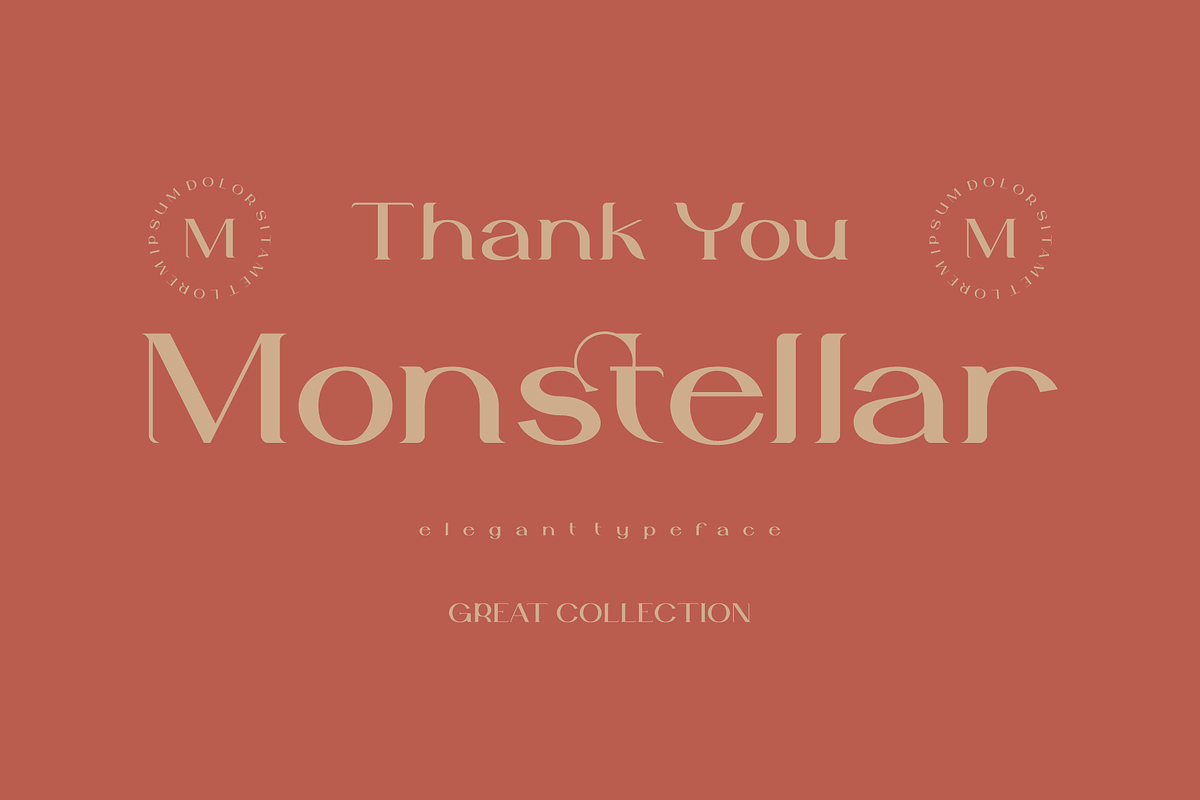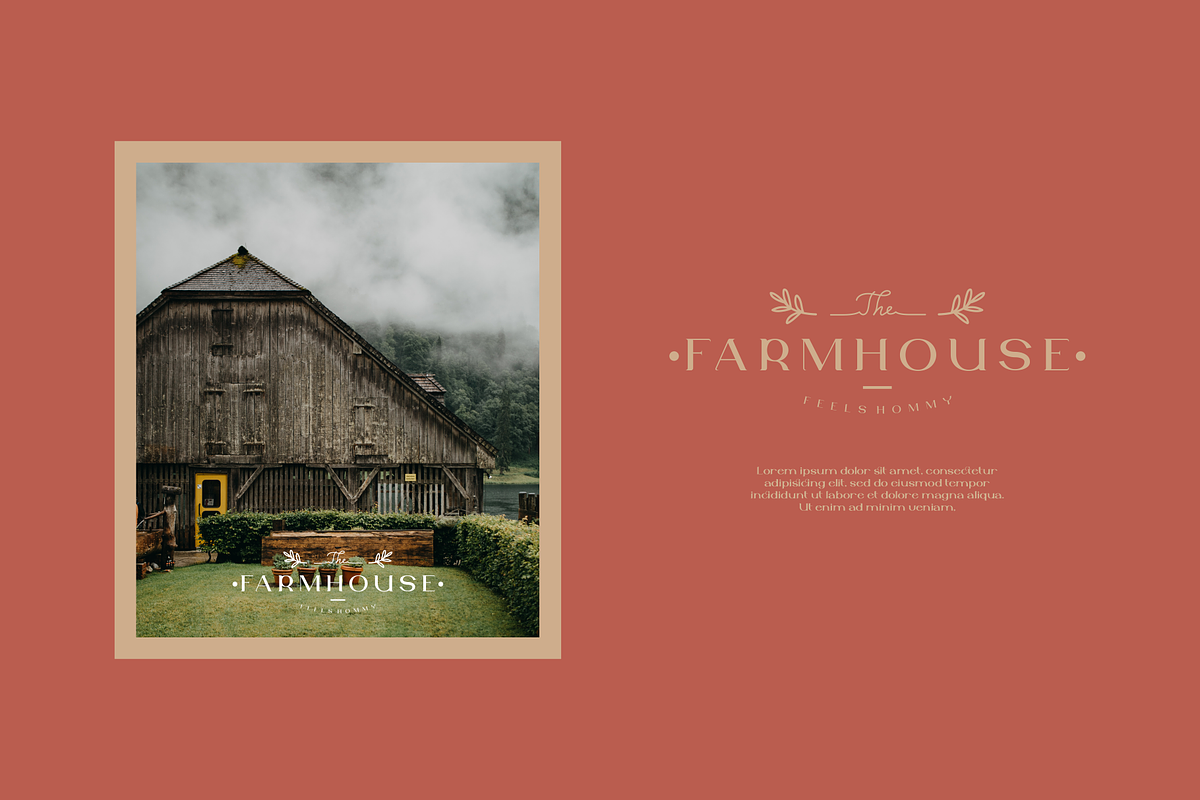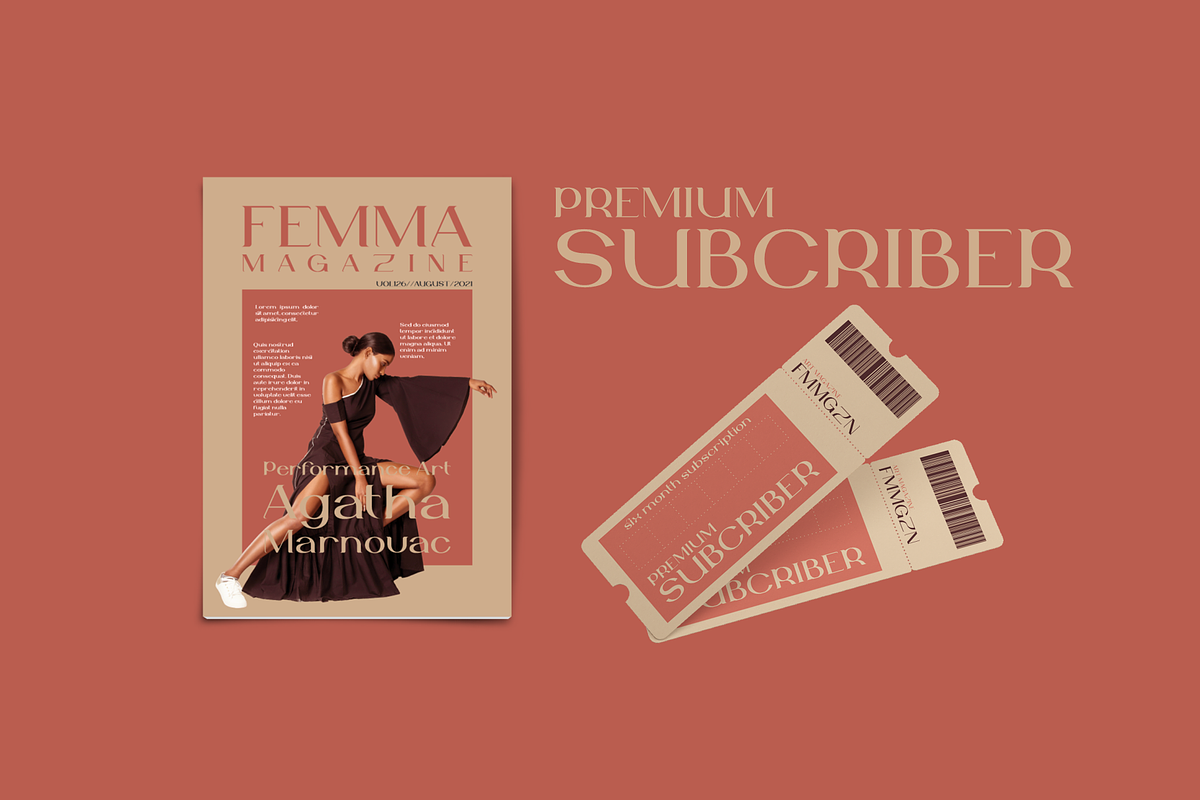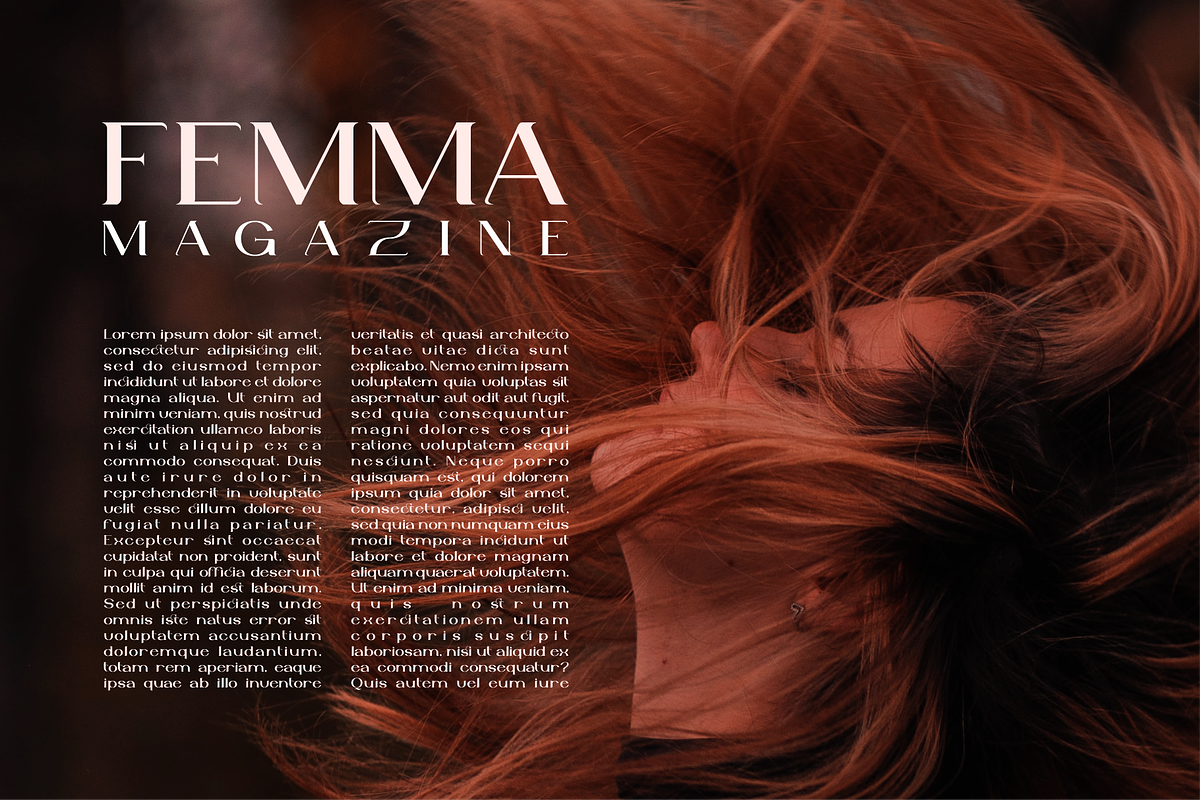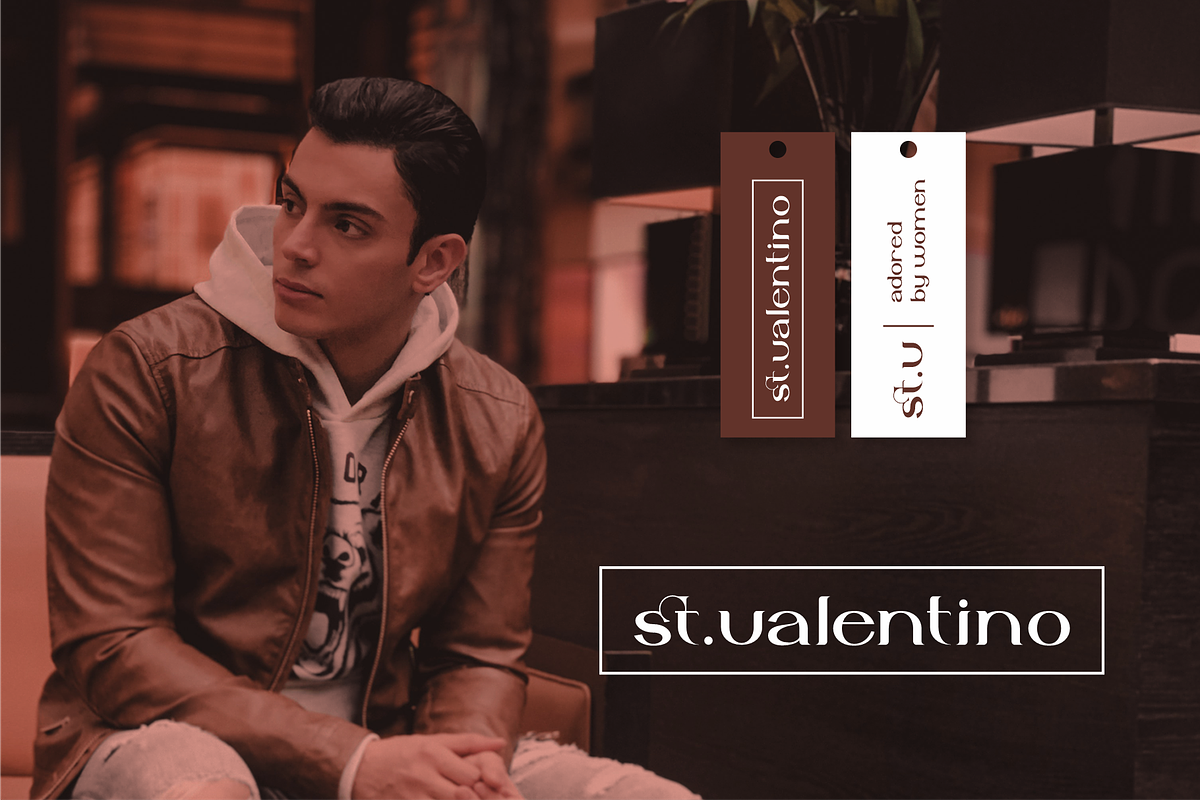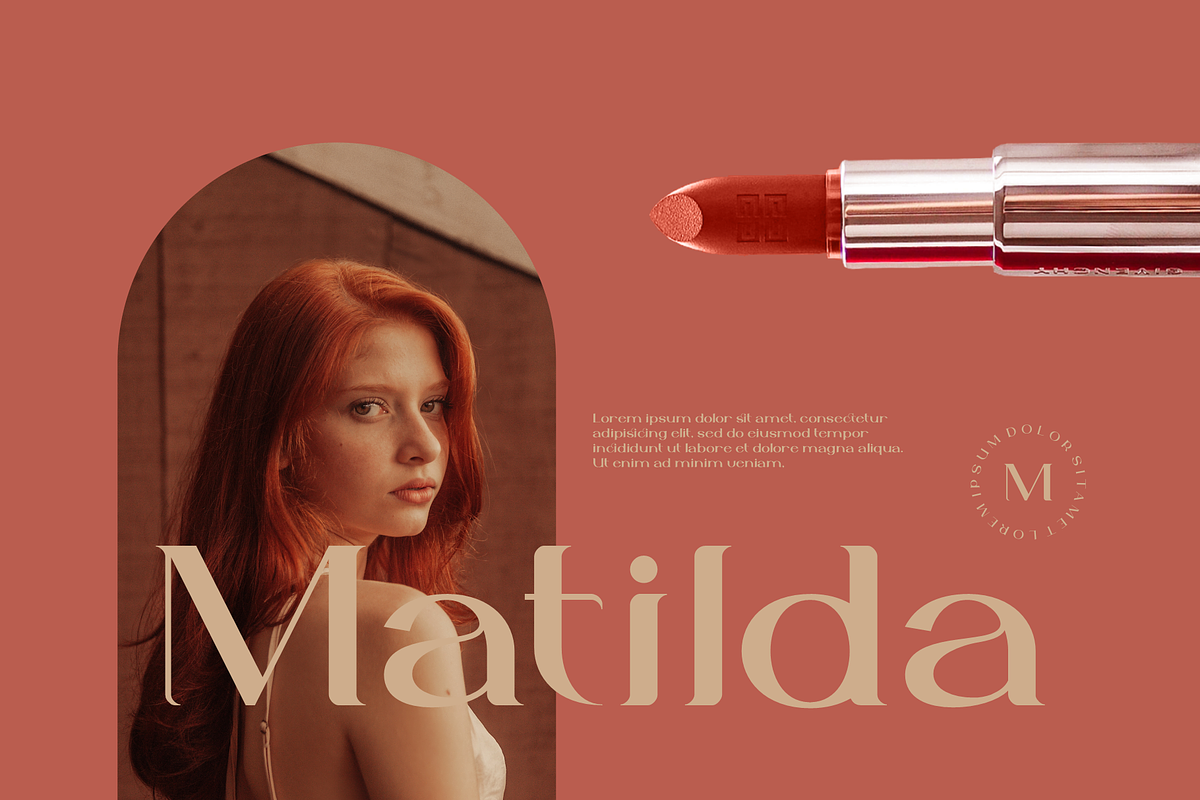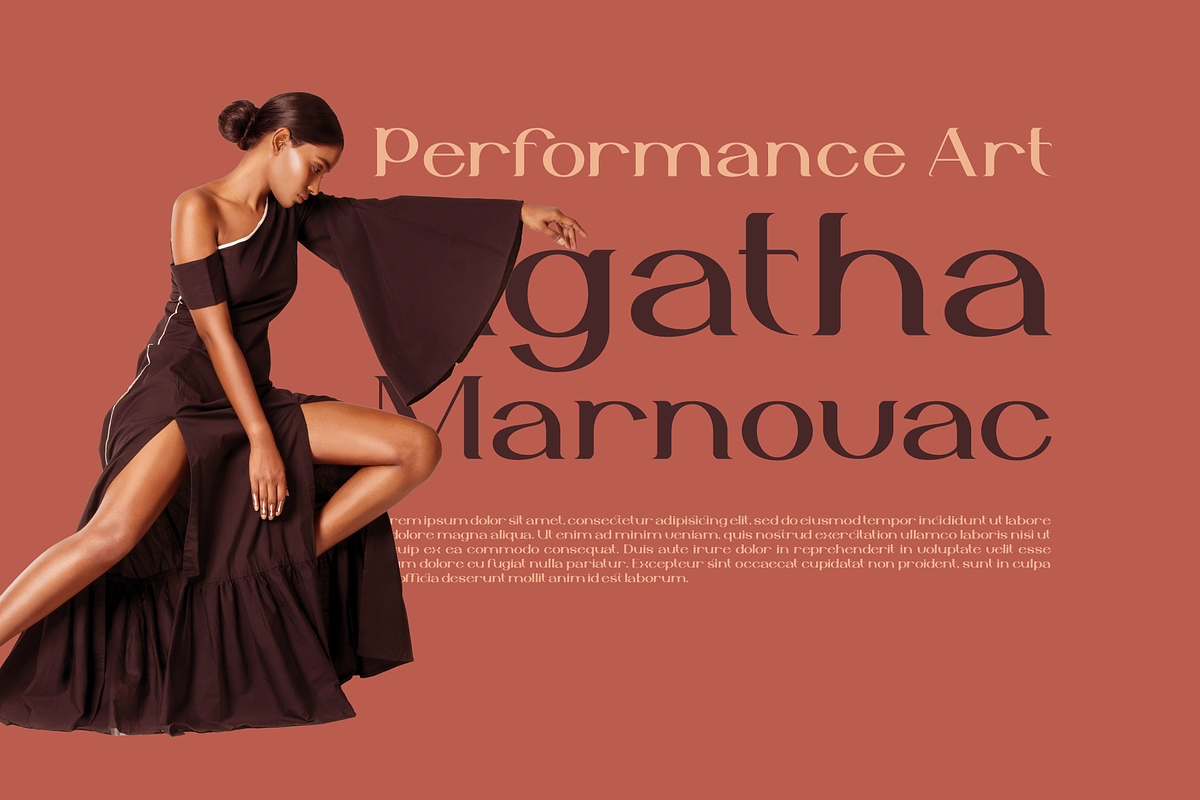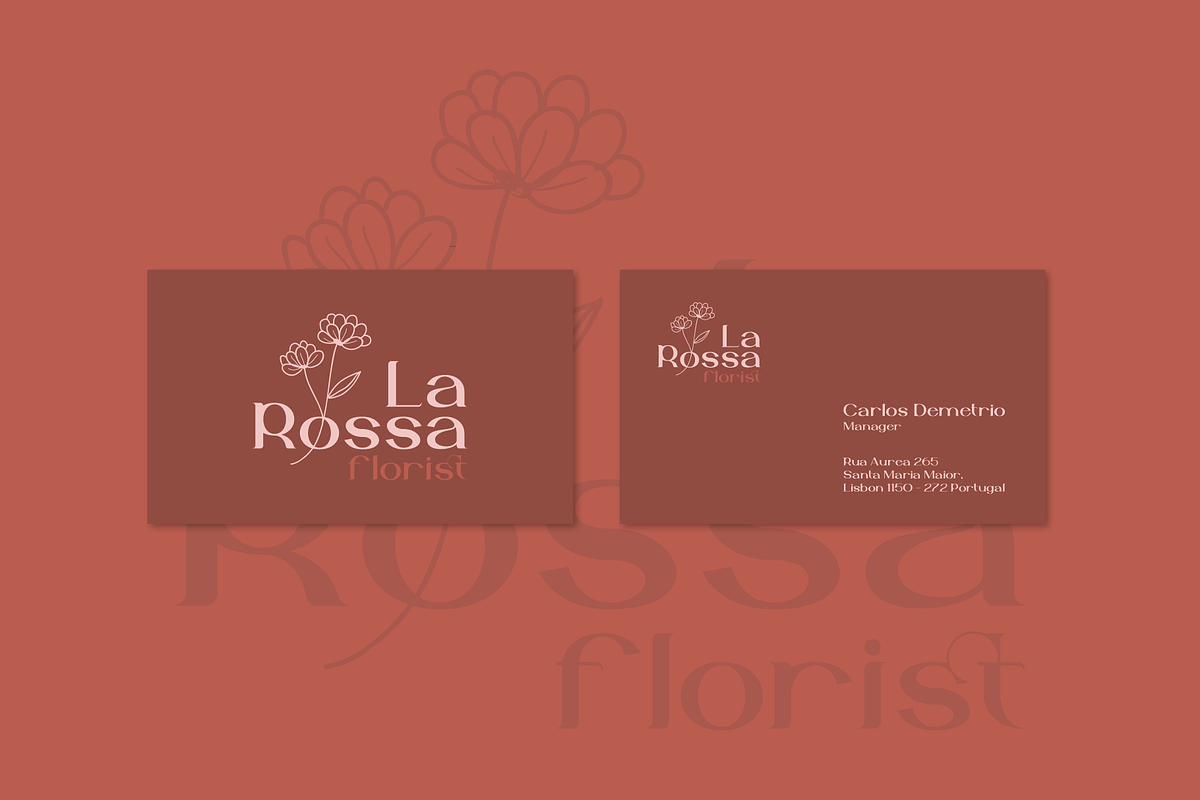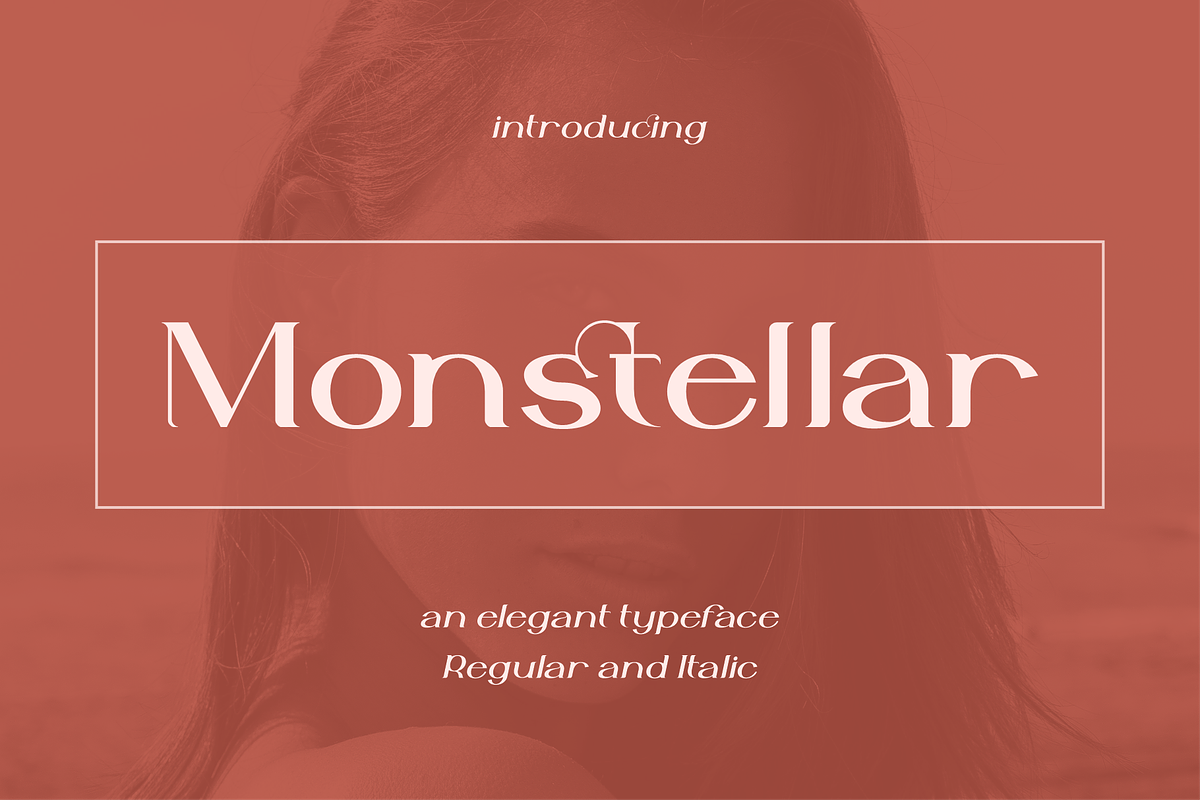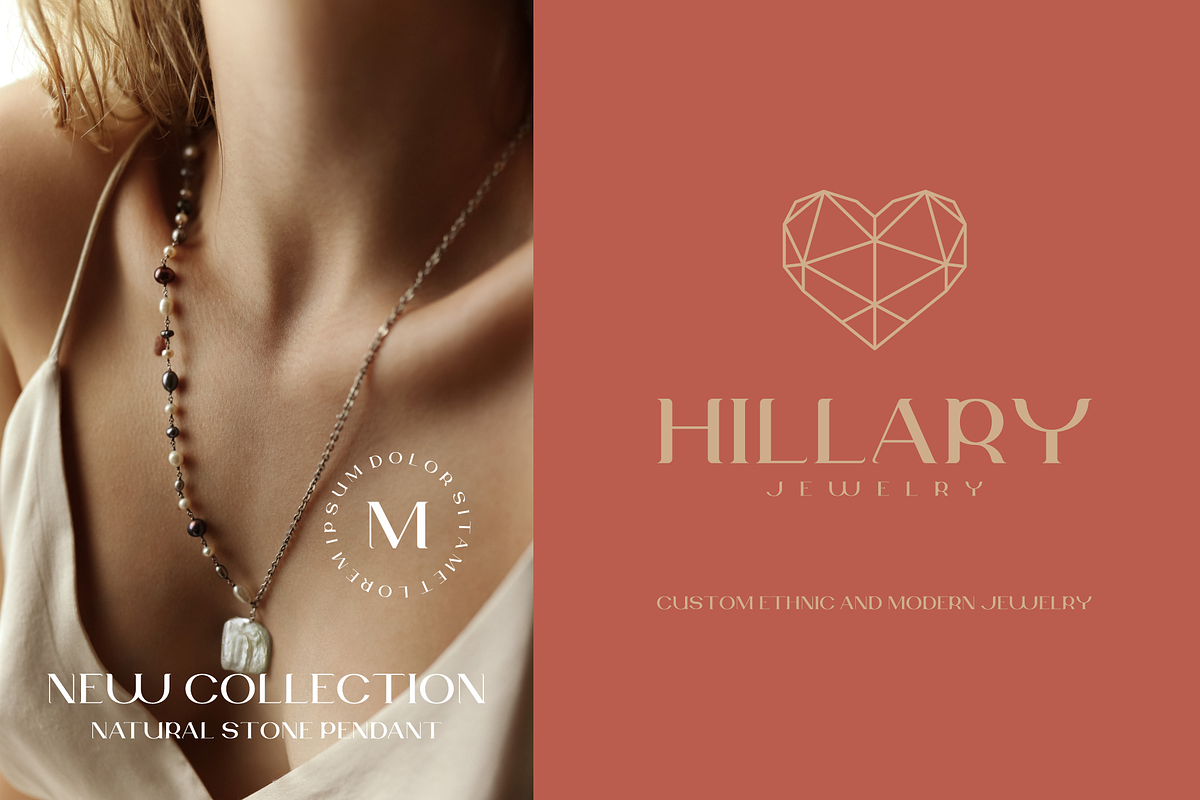
Monstellar
Introducing Monstellar Elegant Typeface
Monstellar is a Minimalist Modern Elegant font with beautiful ligatures, and multilingual support. It's a very versatile font that works great in large and small sizes.
Monstellar is perfect for branding projects, Logo design, Clothing Branding, product packaging, magazine headers, or simply as a stylish text overlay to any background image.